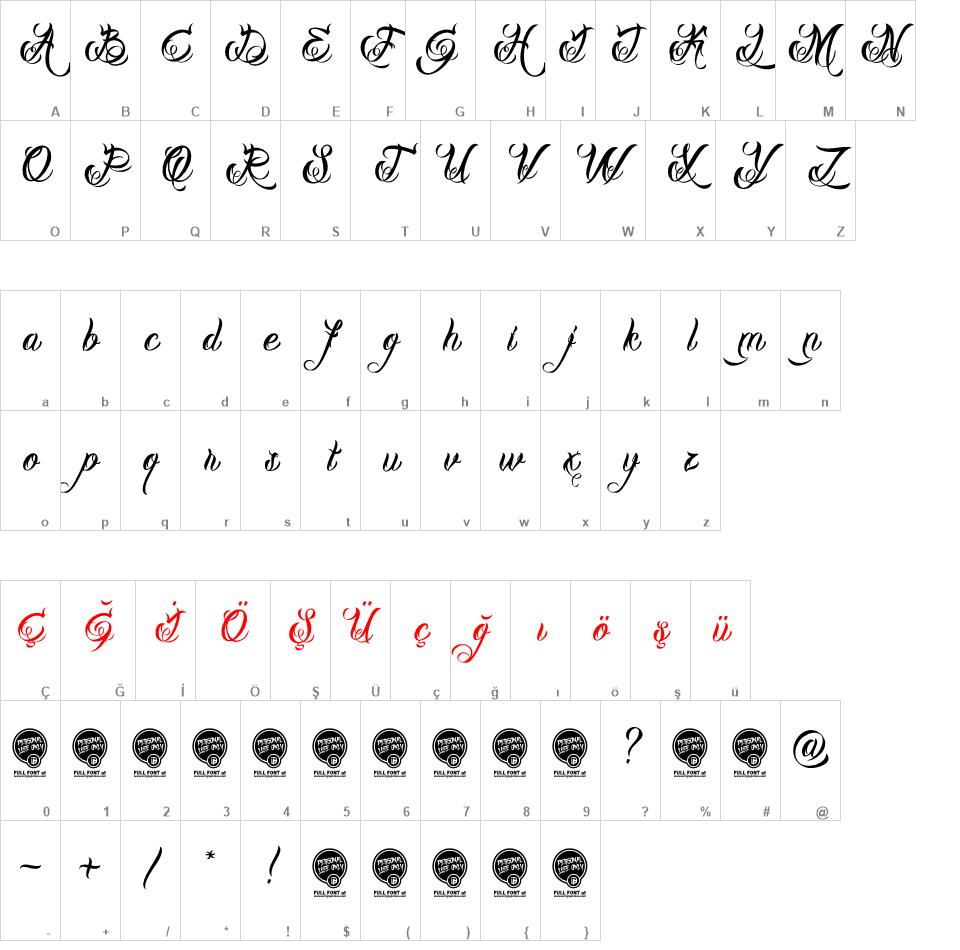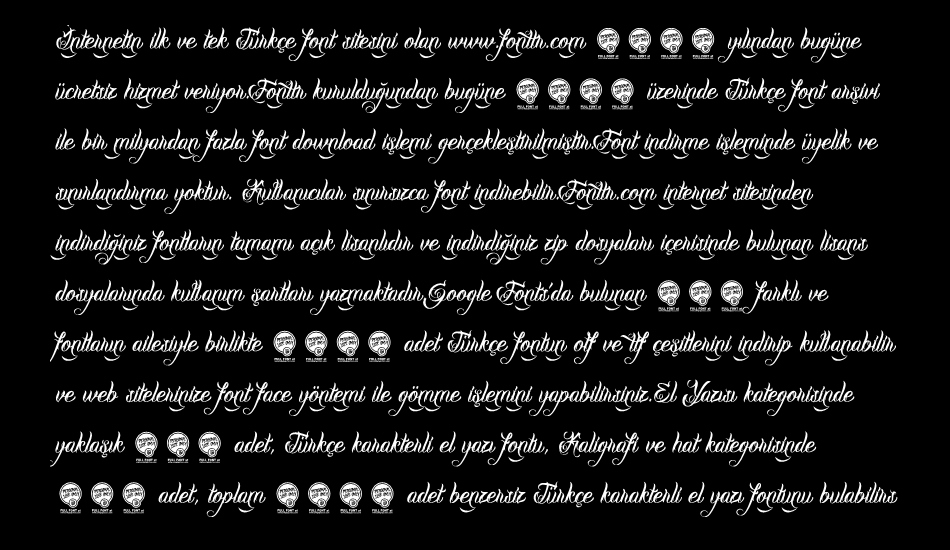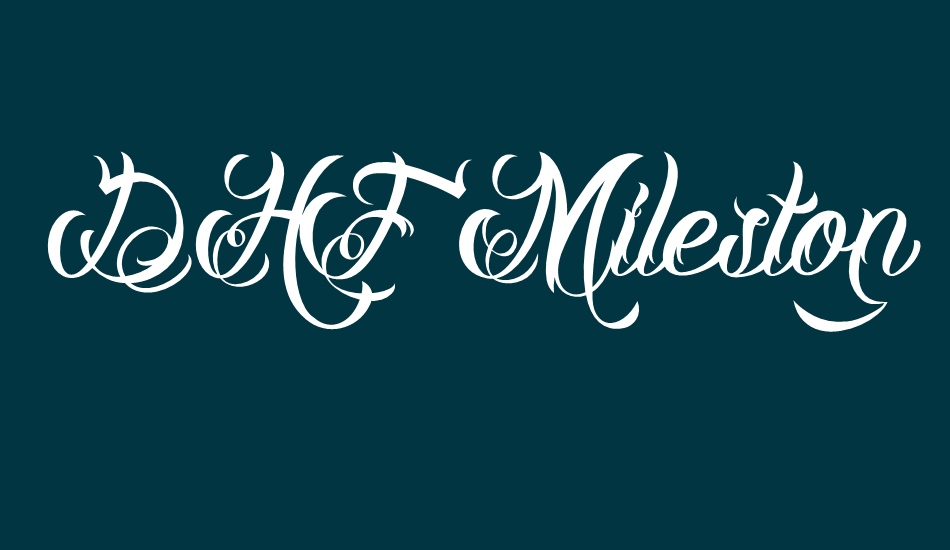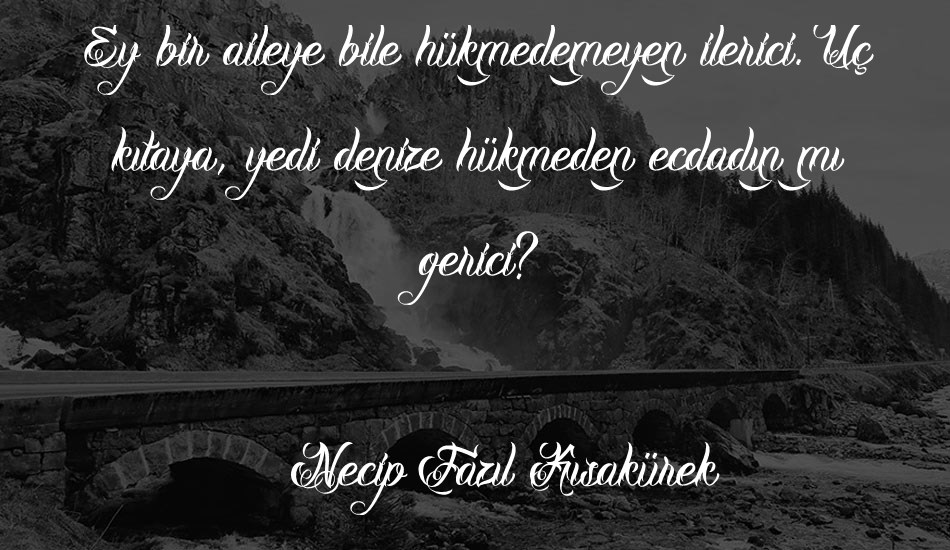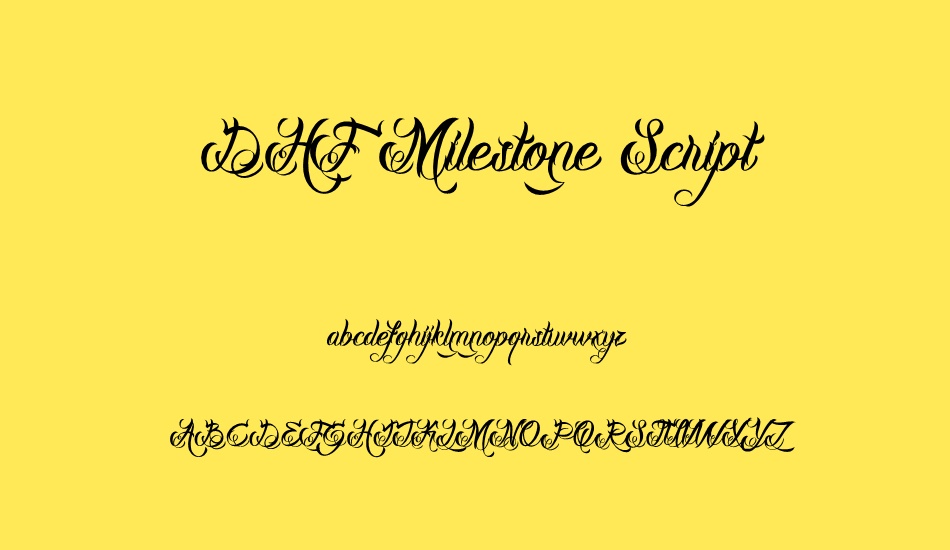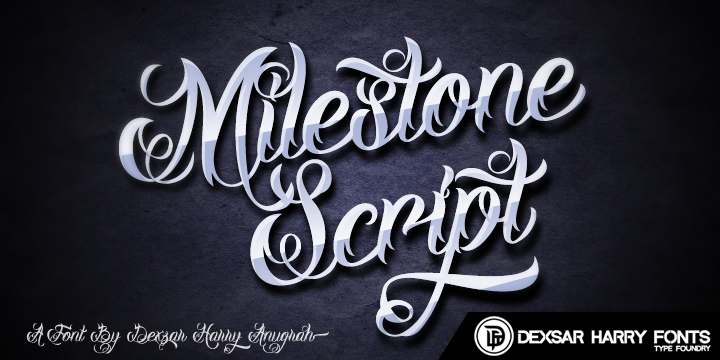
DHF Milestone Script font
DHF Milestone Script
DHF Milestone Script is the script font with many alternates for custom feeling. Milestone Script was made for people who like the script style and tattoo style. This font have many feature OpenType : Contextual Alternate, Swash, Ligatures, Styllistic Alternate, Ordinals & Fraction.